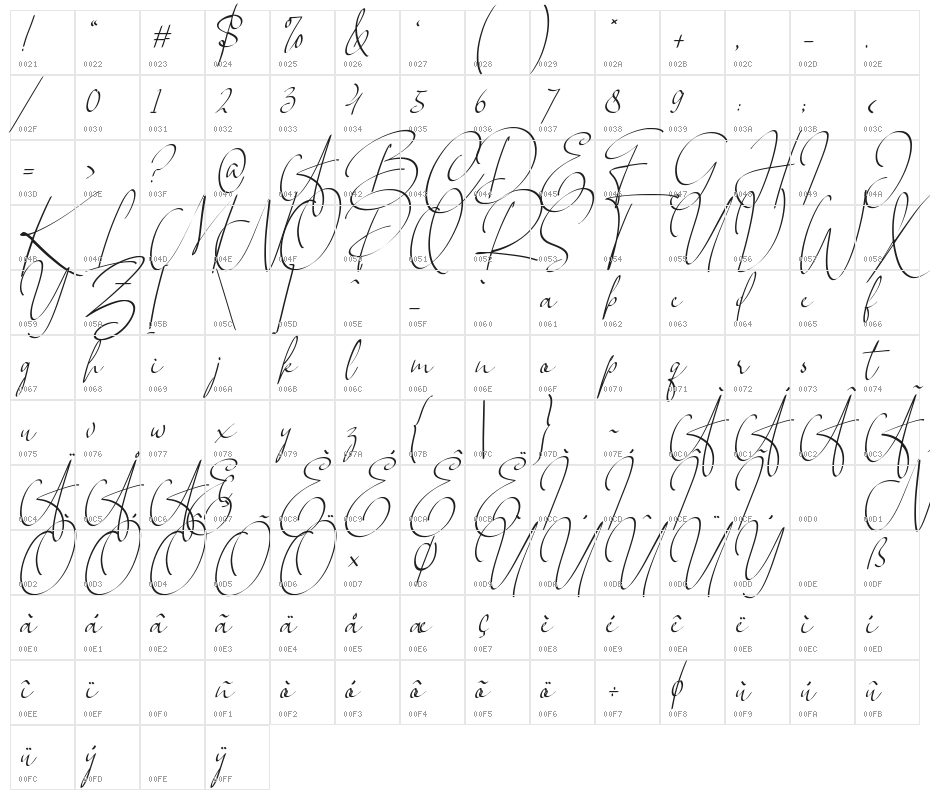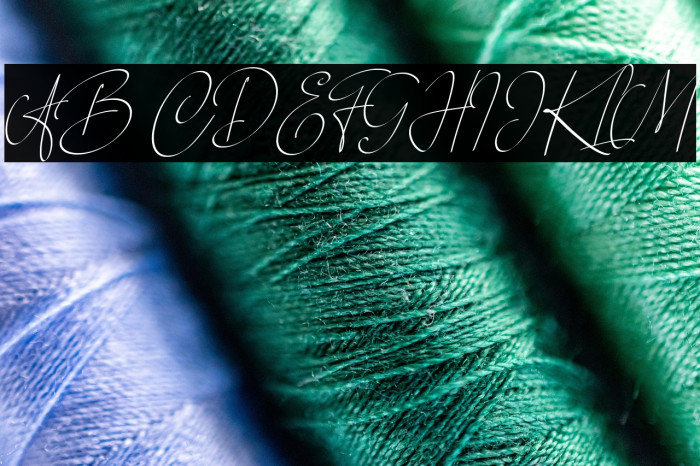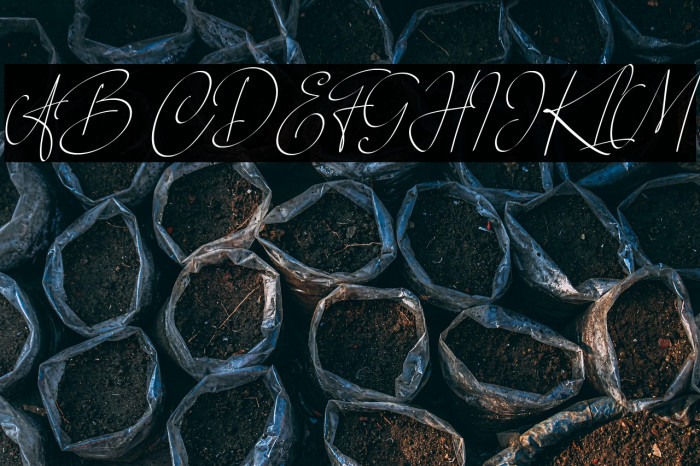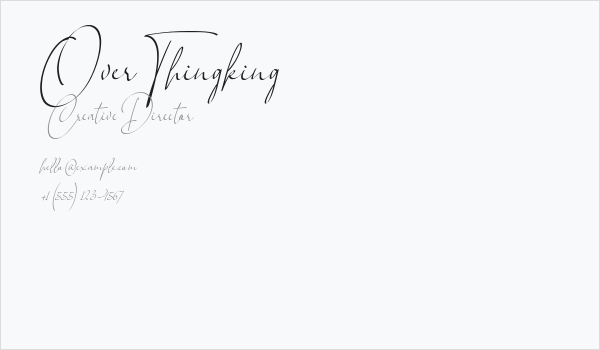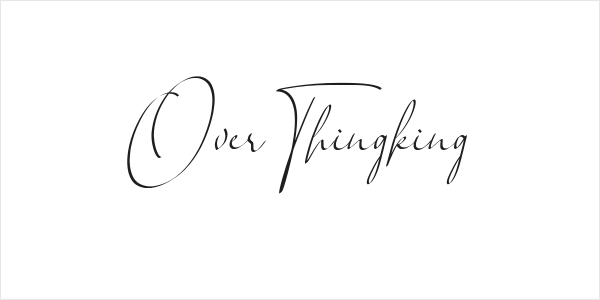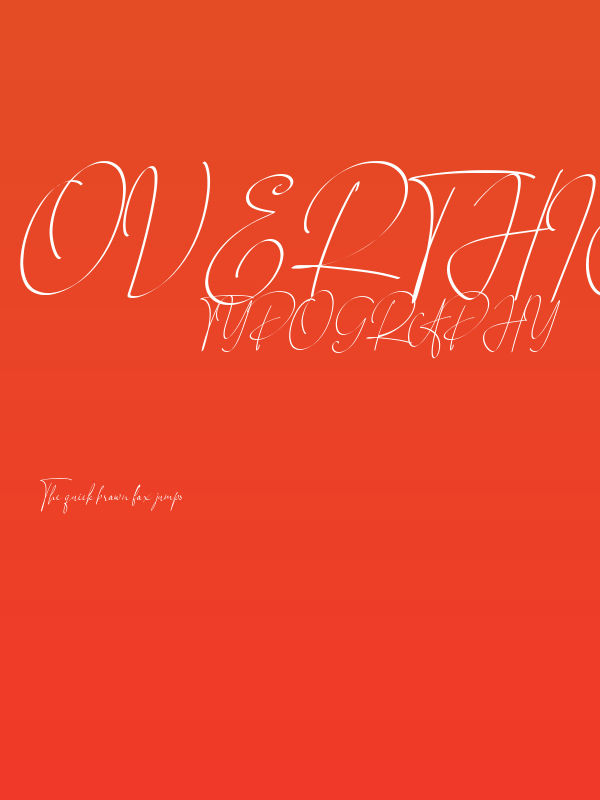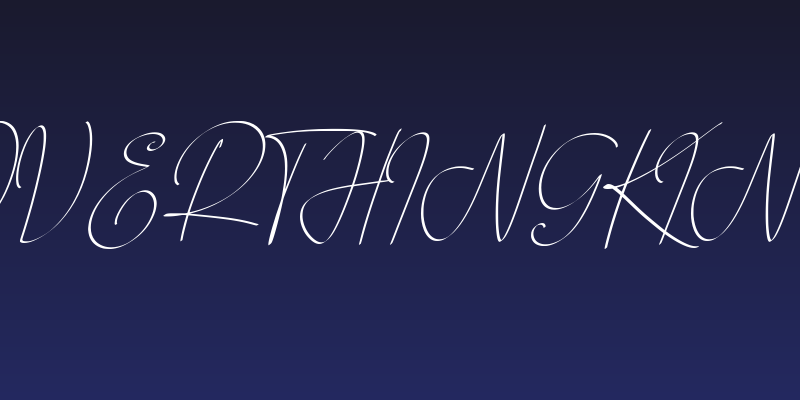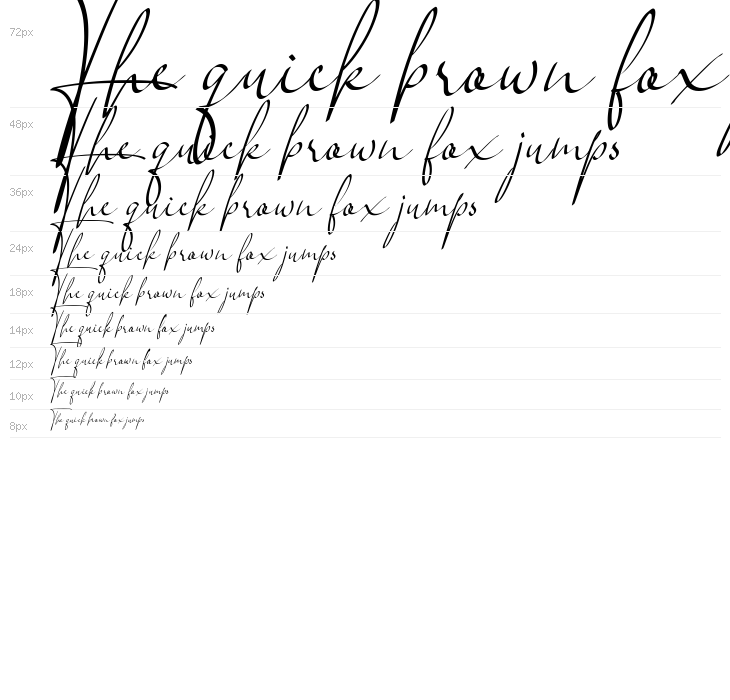
Over Thingking Font
Over Thingking Description
This elegant script font features fluid, cursive strokes with a modern touch. The uppercase letters are gracefully elongated, while the lowercase letters maintain a consistent flow, creating a harmonious and sophisticated appearance. The numerals are stylishly integrated, complementing the overall aesthetic. Special characters are thoughtfully designed to match the script's elegance. The font's delicate lines and smooth curves make it suitable for projects that require a touch of refinement and class.